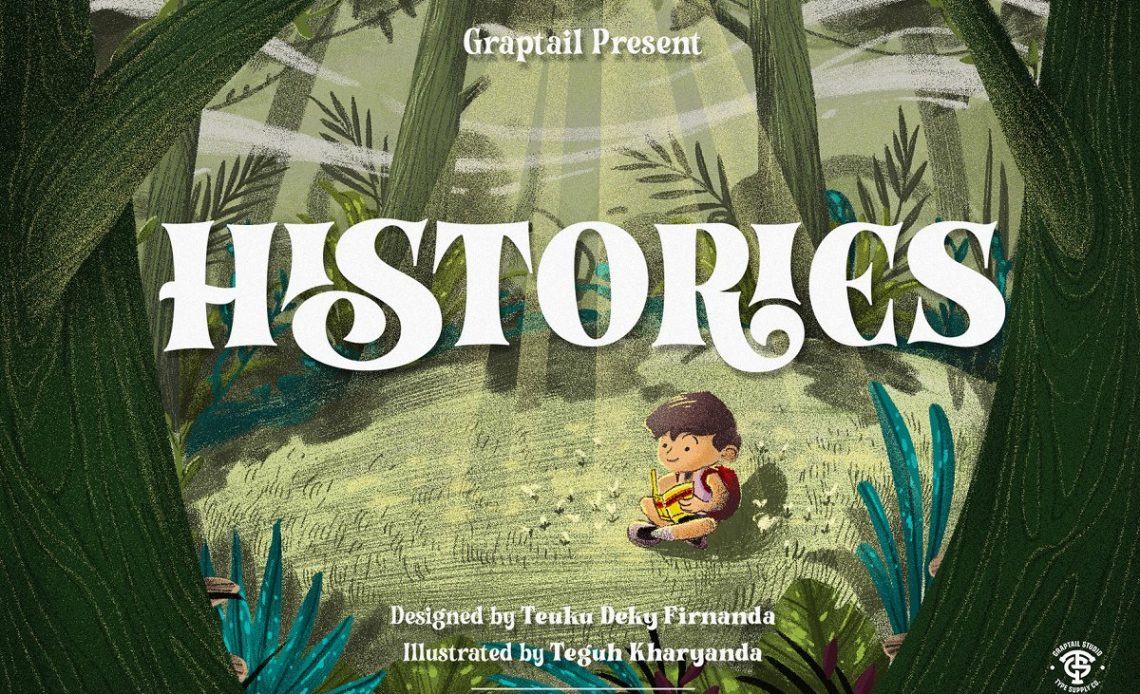
Are you looking for the perfect font to elevate your display posters and give them a magical, fairytale-like feel? Look no further than Histories - Fairytale Typeface, created by Teuku Dq Firnanda. Inspired by the letters on the covers of fairy tale books and animated films, Histories is the perfect blend of playful structure and attractive design.
This font family features multiple ligatures that combine its playful structure with a more attractive feel, providing a wide range of uses across ligature combinations, alternate marks, pre-caps, assortments, and connectors. With glyphs, it provides endless possibilities for customization, and each of these can be accessed via Open Type.
Histories Font Family works best for headings, logo types, quotes, apparel design, invitations, flyers, posters, greeting cards, product packaging, book covers, printed quotes, cover albums, movies, and much more. This font family is also supported PUA encoded.
Additionally, Histories Font Family features several Opentype features such as Discretionary Ligature, Standard Ligature, Fractions, Stylistic Alternates, and Stylistic Sets. These Opentype features ensure the proper interaction with uppercase letters and offer a solid foundation for the development of lowercase glyphs.